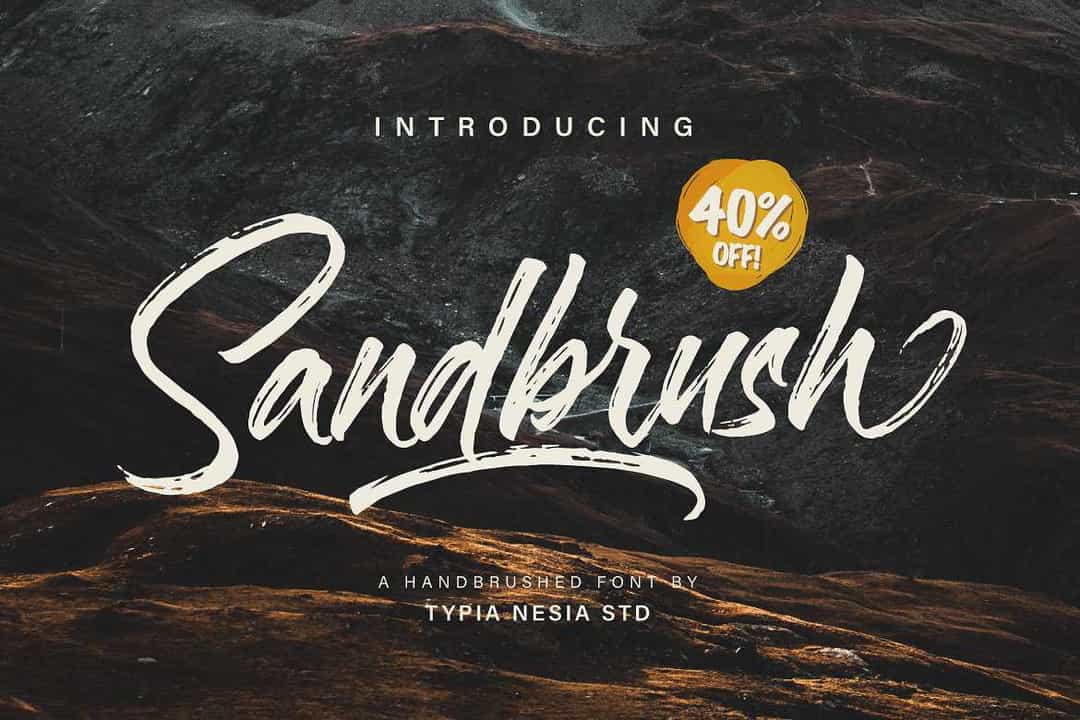
Sandbrush is a natural hand brushed font. Work great for any design needs : Logo design, branding, modern advertising graphics, logos, poster quote, book / cover title, editorial design, websites / blogs, cards, custom mugs, pillows, T-shirts and any other hand-lettered services.